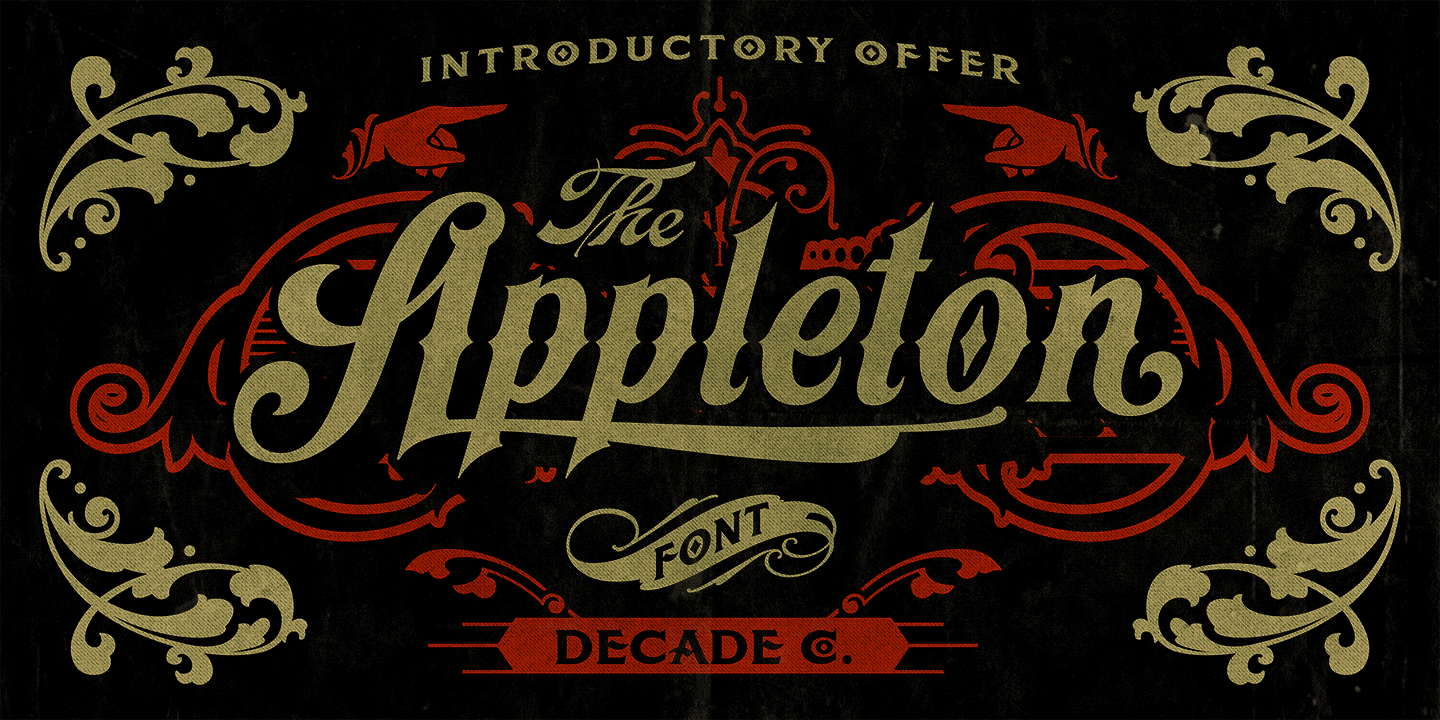
Appleton Font is perfect for orchard farm branding, apple cider breweries, harvest festival promotions, country farmers market signage, autumn celebration materials, rustic farm-to-table restaurants, organic fruit packaging, seasonal harvest campaigns, traditional cider houses, apple pie bakery labels, countryside autumn tours, and wholesome agricultural communications. This charming typeface brings orchard freshness to projects requiring harvest authenticity and countryside charm.
What makes Appleton Font so exciting is its delightful ability to capture the crisp freshness and wholesome goodness of apple orchards through naturally crafted letterforms that embody the honest simplicity and seasonal beauty of harvest time traditions. The font features organically rounded characters with harvest-inspired proportions and countryside warmth that mirror the natural abundance and rustic charm found in traditional apple orchards and seasonal farming communities. Its wholesome character conveys freshness and tradition while maintaining excellent readability, making it perfect for agricultural brands seeking to communicate farm-fresh quality, seasonal harvest, and the timeless appeal of countryside traditions with authentic orchard authenticity.
The Appleton Font family includes multiple harvest weights and orchard-inspired variations that showcase its countryside character while providing comprehensive design flexibility for various agricultural and seasonal applications. Each variant maintains the original's fresh charm while offering extensive options for creating wholesome typographic compositions that celebrate harvest traditions and natural abundance.
Whether you're developing agricultural brand identities, creating harvest marketing materials, or designing countryside communications, Appleton Font Free Download offers the perfect combination of orchard authenticity and contemporary functionality. This exceptional typeface brings genuine harvest charm to design projects, making it an indispensable choice for designers seeking typography that effectively communicates farm freshness, seasonal tradition, and the wholesome goodness of apple orchard heritage with authentic countryside appeal.